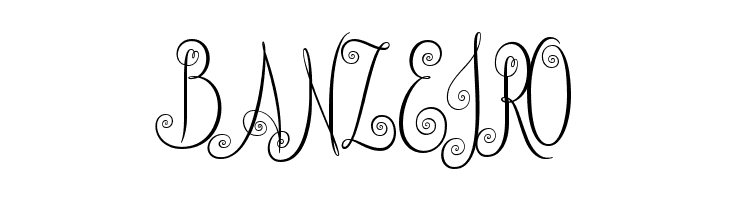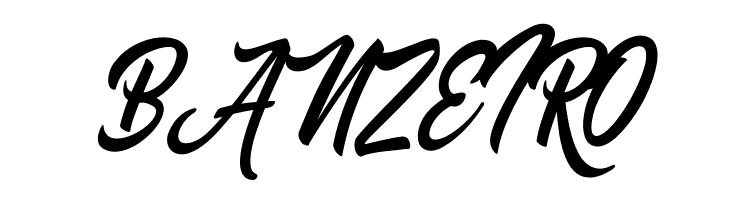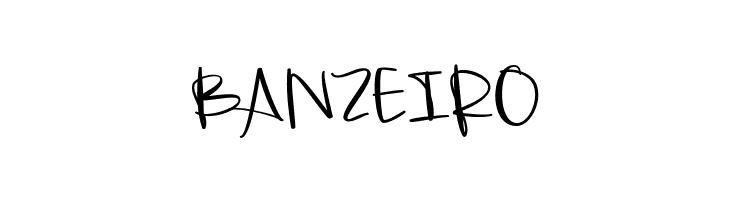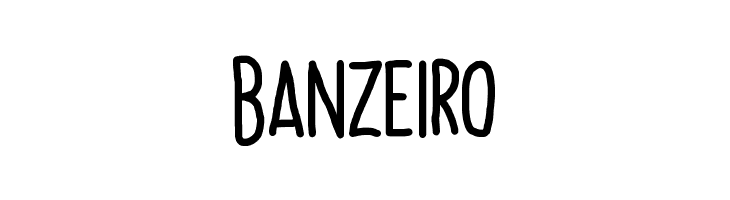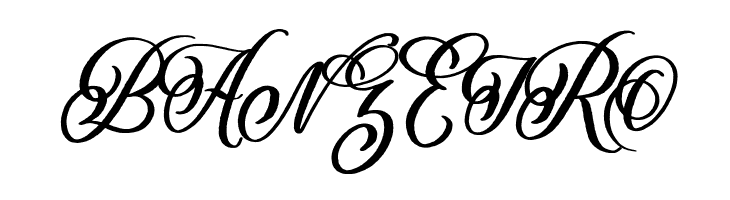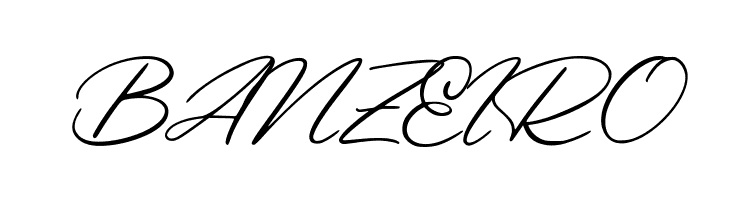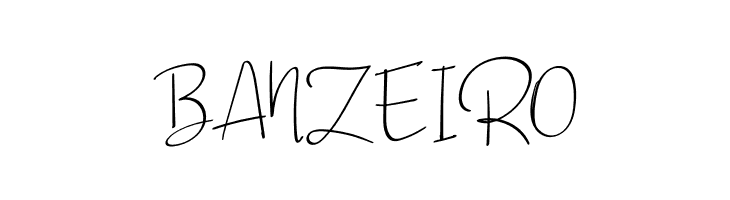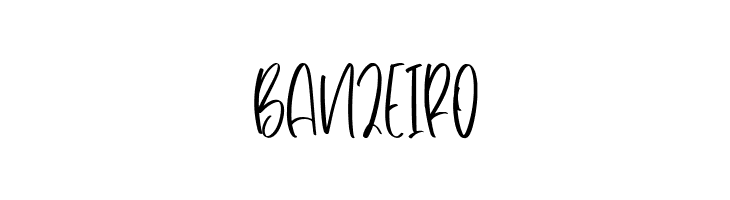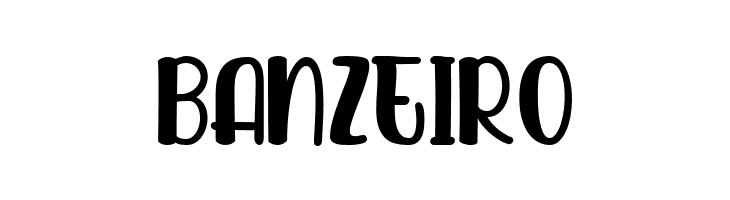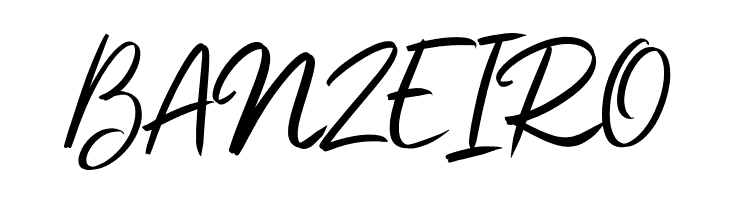
A bold, geometric font with overlapping shapes and a modern, artistic style.
A bold, geometric font with interlocking shapes and dynamic contrast.
An elegant script font with flowing, interconnected letters and a classic calligraphic style.
A playful, handwritten font with a whimsical and dynamic style.
An elegant calligraphic font with flowing, decorative strokes and intricate swirls.
A tall, slender, and elegant handwritten-style font with smooth, flowing lines.
Ornate, high-contrast script with flowing, decorative forms.
An elegant, flowing script font with a handwritten feel.
A bold, expressive script font with flowing, interconnected characters.
A bold, geometric font with a futuristic and segmented design.
A bold, geometric font with rounded, overlapping shapes for a modern, artistic look.
A playful handwritten font with a casual and friendly style.
A decorative script font with a vintage, hand-drawn style and distressed texture.
An elegant, flowing script font with graceful, cursive letterforms.
A playful handwritten font with an informal and friendly style.
A flowing, cursive script with elegant, sweeping strokes and a romantic feel.
An elegant, cursive font with flowing, sophisticated strokes.
An elegant, decorative script font with intricate swirls and flowing letters.
A playful and elegant handwritten font with smooth, flowing lines.
A playful, bold font with rounded edges and a whimsical style.
An elegant serif font with decorative flourishes and a classic yet modern appeal.
An elegant script font with flowing, interconnected letters and ornate flourishes.
A playful, handwritten font with a whimsical and dynamic style.
A bold, jagged font with an edgy, brush-like appearance.
An elegant and decorative script font with intricate swirls and flourishes.
A bold, brush-style font with a lively and artistic flair.
A whimsical and decorative font with intricate swirls and curls.
A graceful, flowing script font with elegant, connected strokes.
An elegant, flowing cursive font with interconnected letters.
A lively, cursive script font with fluid, connected letters and varying stroke thickness.